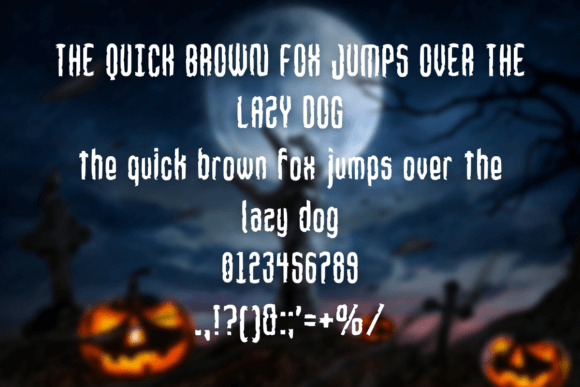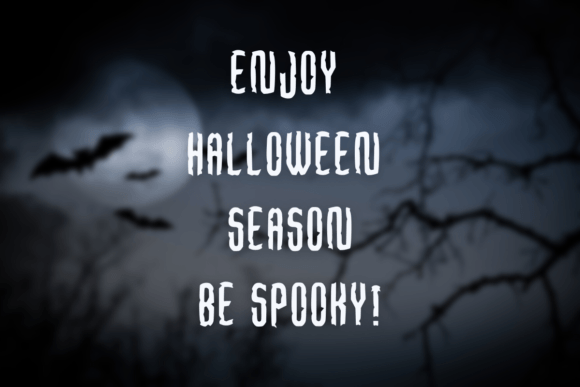
The Spooky Charm of Boo Halloween Font: A Designer’s Delight
I’ll never forget the time I was working on a Halloween-themed project for a client, and I just couldn’t find the right font to capture the spooky essence of the season. The designs were looking dull, and I was on the verge of giving up. That’s when I stumbled upon the Boo Halloween font, and it was like a ghostly whisper in my ear, “Try me!” ✨ And boy, am I glad I did!
• 😍 Scary, mysterious, and spooky: Boo Halloween font is perfect for any project that needs a horror feel.
• 🎃 Perfect for Halloween: The font is designed specifically for the spookiest time of the year, making it a great addition to your Halloween-related designs.
• 👍 Easily pairs with other fonts: Boo Halloween font blends well with other fonts, making it easy to create a cohesive design.
While I absolutely love Boo Halloween font, there are a few things to keep in mind: 🤔
• ⚠️ Limited use cases: This font is best suited for Halloween-themed projects or horror-related designs. It might not be the best fit for other types of projects.
• ⚠️ Glyphs and special characters: Some users have reported issues with certain glyphs and special characters. Make sure to test the font thoroughly before using it in a project.
Exploring OpenType Features, Glyphs, and Stylistic Alternates
One of the best things about Boo Halloween font is its range of OpenType features, glyphs, and stylistic alternates. These features allow you to customize the font to fit your design needs. For example, you can use:
• Stylistic alternates: Switch between different font styles to create a unique look.
• Glyphs: Access special characters and symbols to add an extra layer of depth to your design.
• OpenType features: Take advantage of advanced typographic features, such as ligatures and swashes.
The creator of Boo Halloween font was inspired by the spooky atmosphere of Halloween. They wanted to design a font that would capture the essence of the holiday and provide designers with a tool to create creepy, eye-catching designs. The result is a font that’s both eerie and elegant.
Q: What type of projects is Boo Halloween font best suited for?
A: Boo Halloween font is perfect for Halloween-themed projects, horror-related designs, and any project that needs a spooky feel.
Q: Is Boo Halloween font easy to read?
A: Boo Halloween font is a display font, so it’s best used for headlines and titles. While it’s still legible, it might not be the best choice for body text.